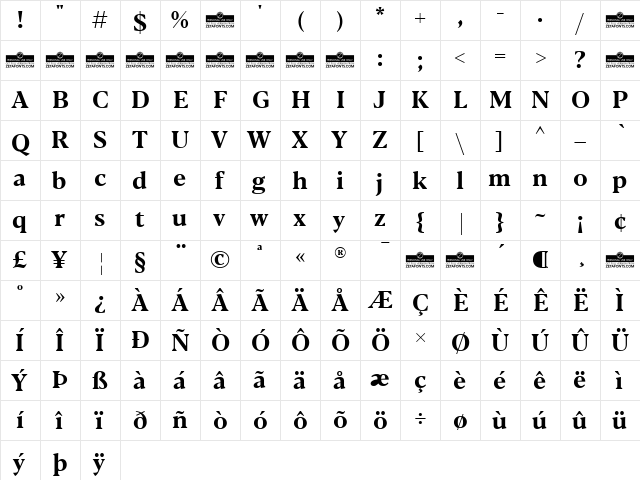
Blacker Text Bold
Bold · Cosimo Lorenzo Pancini & Francesco Canovaro Cosimo Lorenzo Pancini & Francesco Canovaro ·
Design Context for Blacker Text Typeface
Blacker Text is a composed and adaptable typeface that performs quietly and consistently across a wide range of design contexts. The heavy weight commands attention and anchors typographic hierarchies.